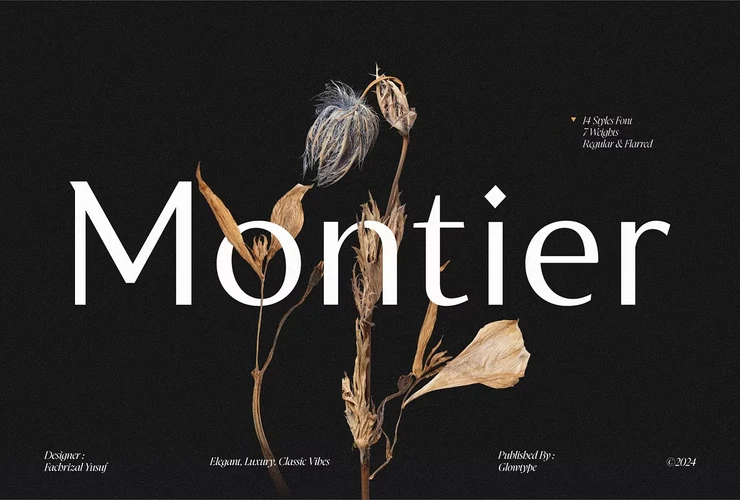
Montier: A Fusion of Elegance and Classic Vibes
Montier is an exquisite font designed to encapsulate both elegance and classic charm. With two distinct styles—Regular and Flared—Montier offers a versatile solution for designers seeking to infuse their projects with luxury, sophistication, and a touch of timeless Roman influence.
Why Choose Montier?
Montier’s dual styles cater to a wide range of design needs. The Regular style exudes luxury and masculinity, making it ideal for modern, upscale projects. On the other hand, the Flared style brings a classical and Roman vibe, perfect for projects that demand a historical or refined aesthetic.
Key Features of Montier:
Versatile Application: Whether you’re working on editorial projects, logo designs, music albums, or apparel branding, Montier fits seamlessly into various display purposes. Its styles are also perfect for product packaging, magazine headlines, and stylish text overlays on background images.
Elegant and Classic Styles: The Regular style offers a luxurious and masculine feel, while the Flared style adds a touch of classical elegance, making Montier a perfect choice for projects that require a blend of modernity and tradition.
Comprehensive Font Features: Montier includes ligatures, discretionary ligatures, small caps, old style numeric figures, stylistic alternates, and both OTF and TTF formats, ensuring that designers have all the tools they need for high-quality typography.
Perfect for Display Purposes
Montier is more than just a font; it’s a statement of style. Its unique blend of elegance and classic vibes makes it an excellent choice for any project that needs to stand out. Whether you’re designing for luxury brands, editorial layouts, or creating eye-catching headlines, Montier provides the perfect balance between modern luxury and timeless elegance.